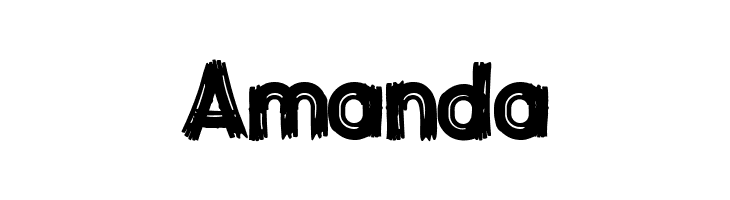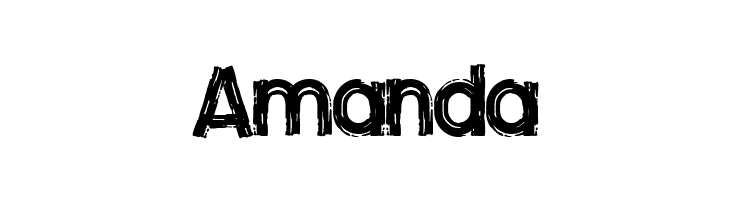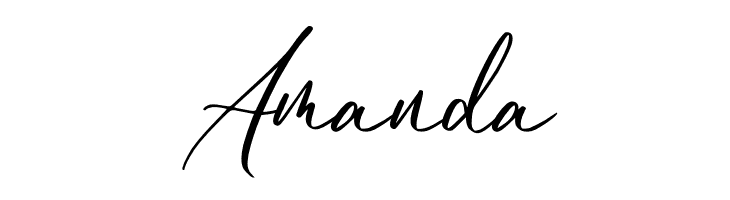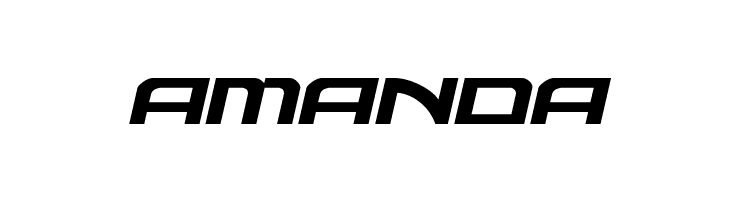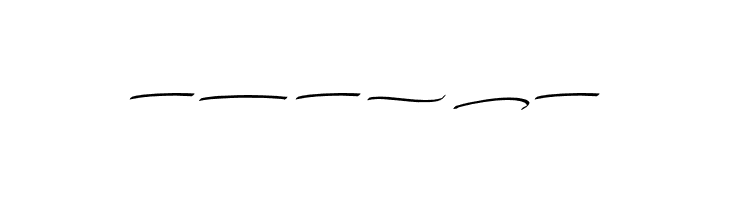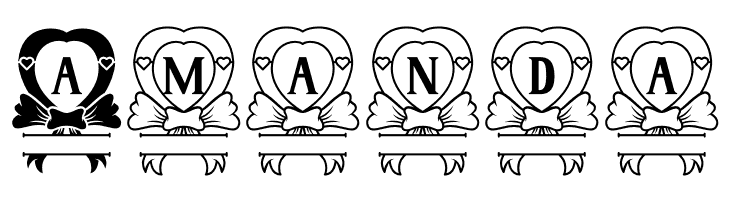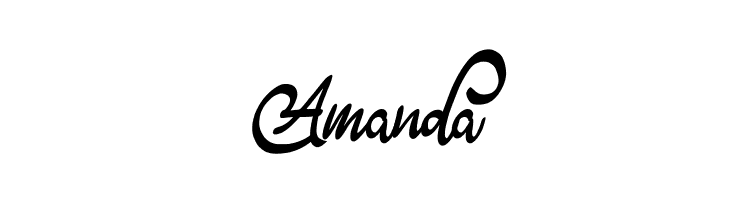
• AlexandrySwash
An elegant, flowing font with sophisticated swashes and decorative flourishes.
• Alexaniri 2.0
A rugged, distressed font with a hand-drawn, textured style.
• Alexaniri_demo
A bold, brush-textured font with a dynamic, hand-drawn style.
• Alexaniri_demo
A bold, brush-like font with a dynamic and textured appearance.
• Alexanna
A sophisticated script font with fluid, cursive strokes and elegant design.
• Alexatie
A playful, heart-encased decorative font ideal for whimsical projects.
• alexey
A modern, geometric font with smooth lines and a futuristic style.
• alexey
A futuristic, geometric font with bold, angular letterforms.
• alexey Bold
A bold, futuristic font with geometric shapes and sharp angles.
• alexey Bold Italic
A bold, italicized font with a futuristic and geometric design.
• alexey Italic
A futuristic, geometric italic font with bold, angular lines and unique cutouts.
• alexey-Hollow
A futuristic, hollow, geometric font with a modern aesthetic.
• alexey-Hollow-Inverse
A modern, hollow, and geometric font with an inverse style.
• alexey-Inverse
A futuristic, geometric font with bold, angular lines and a dynamic style.
• alexey-Light
A futuristic, geometric font with bold, dynamic letterforms.
• Alexi
A bold, cursive font with a dynamic, handwritten style.
• Alexis Bold Italic
A bold, italic font with a modern, futuristic design and sharp angles.
• Alexis Expanded
A futuristic, geometric font with sharp angles and clean lines.
• Alexis Laser
A futuristic, geometric font with sharp angles and clean lines.
• Alexis Semi-Italic
A modern, semi-italic font with a bold, tech-inspired design.
• Alexside